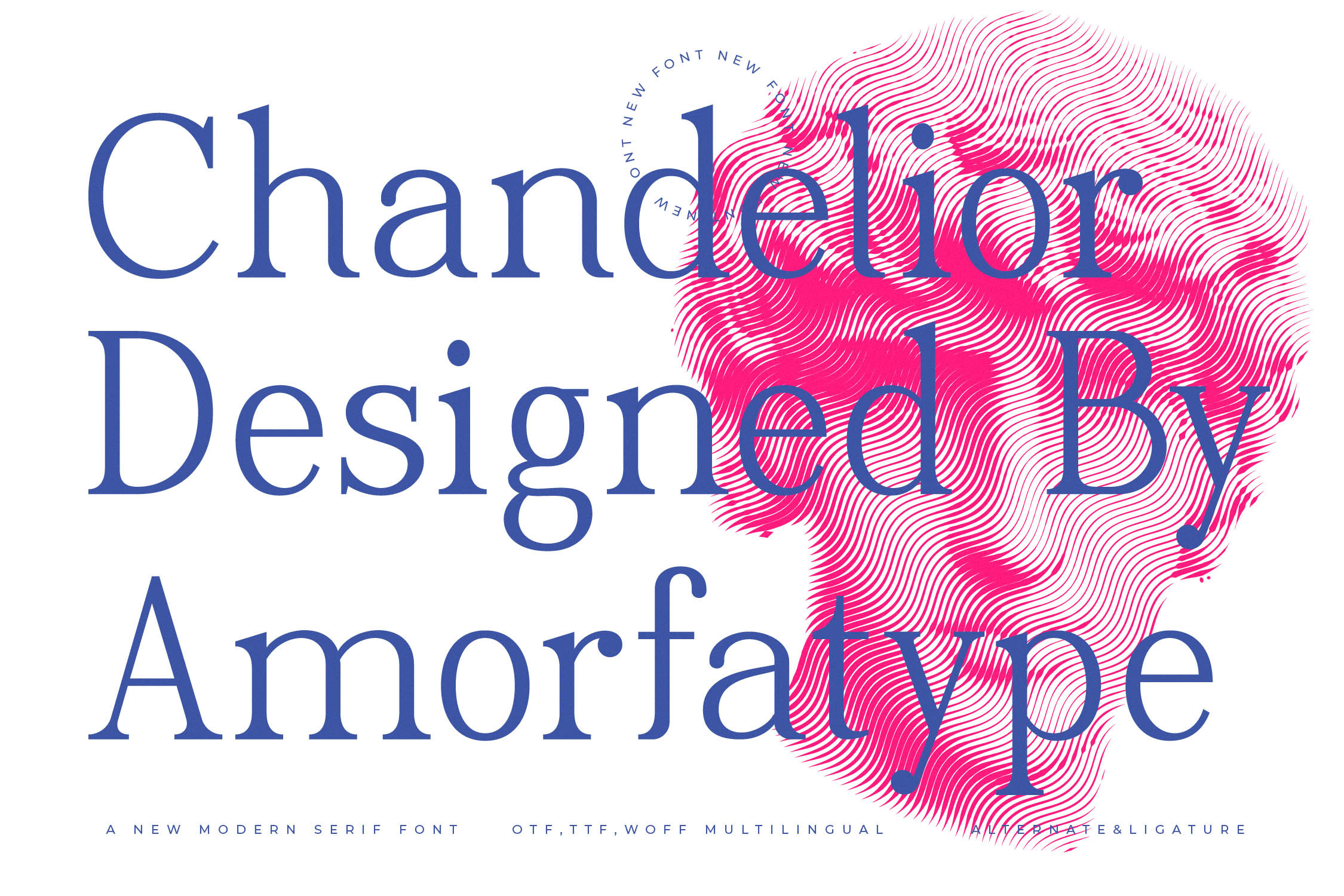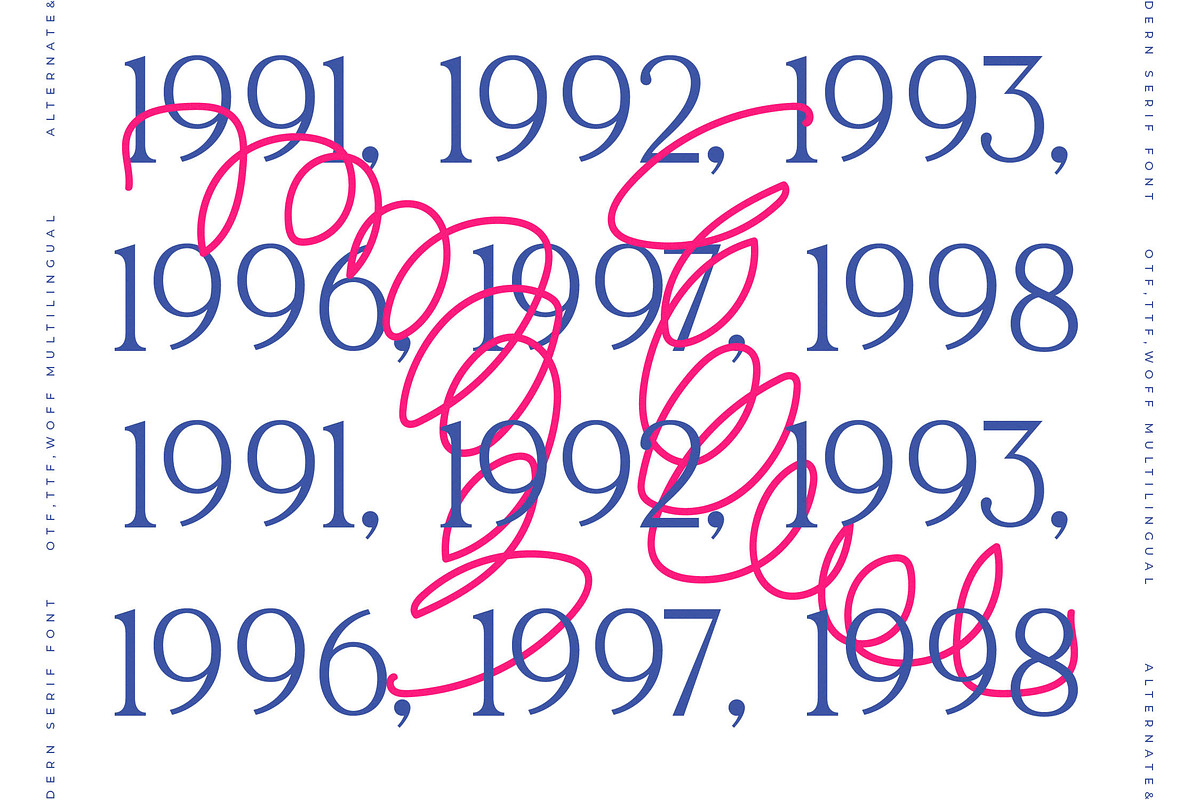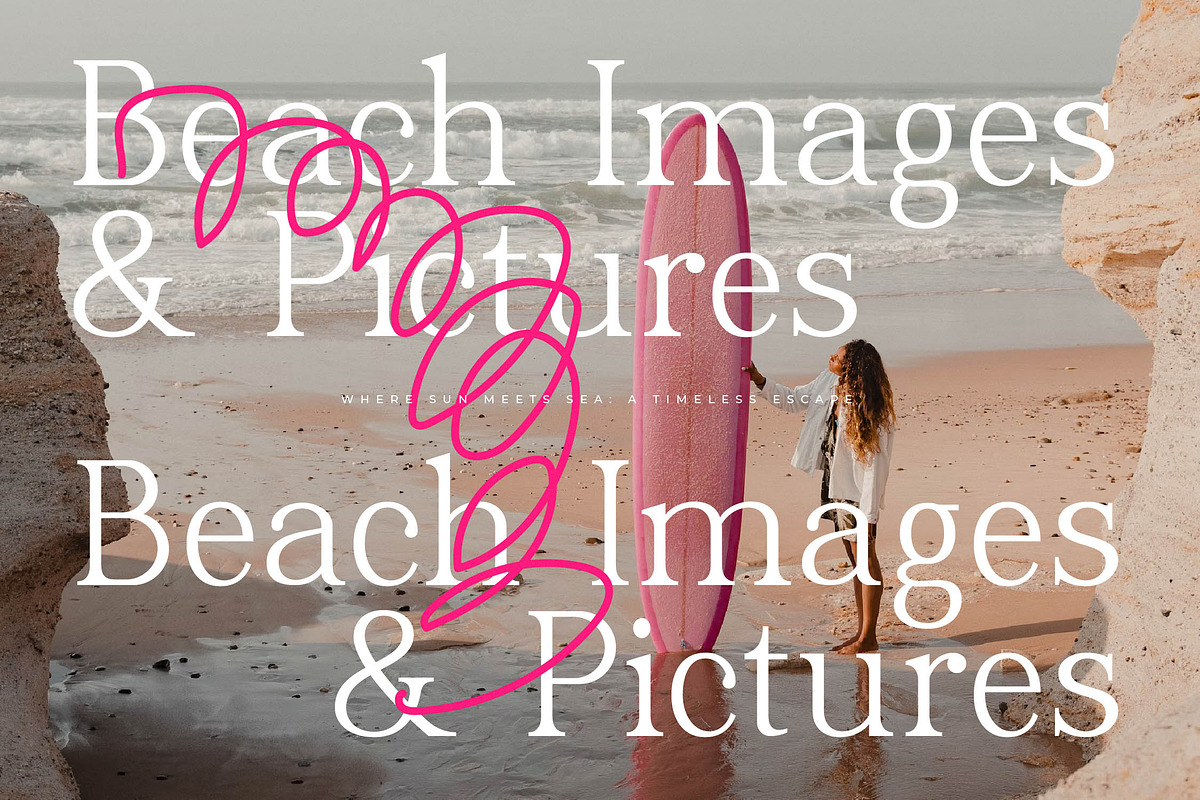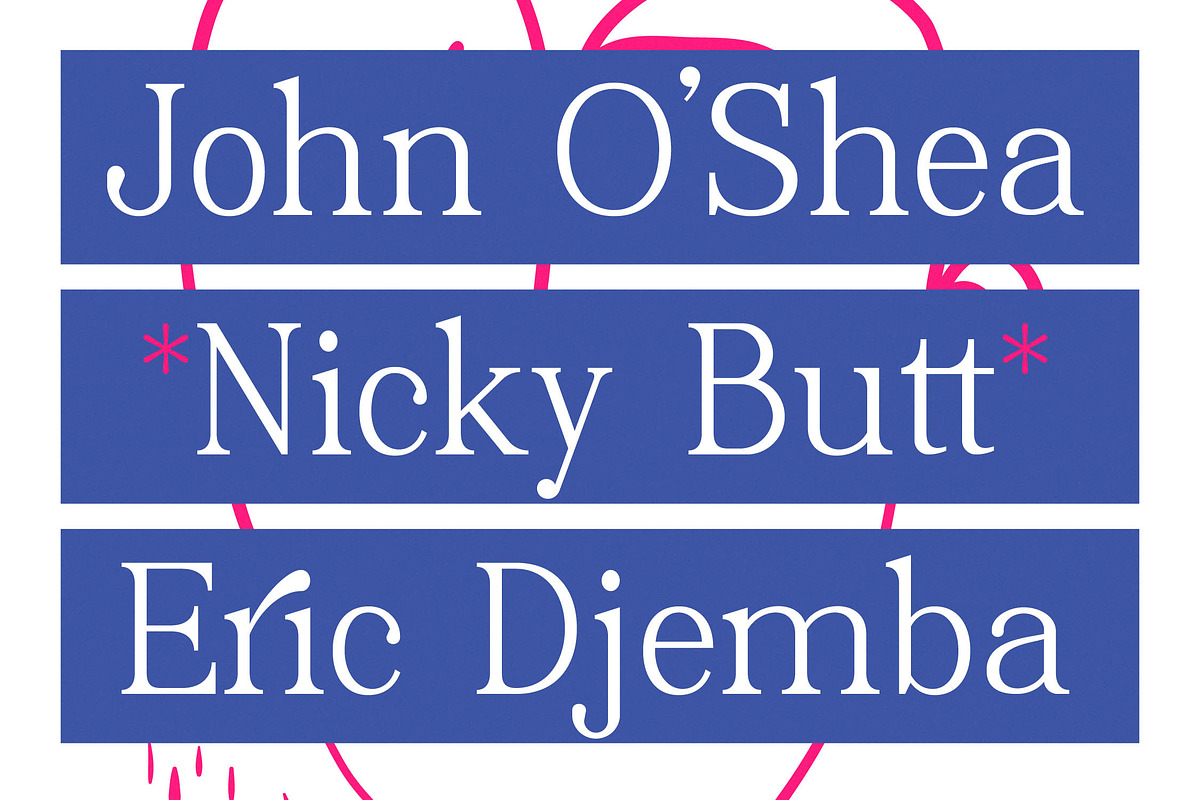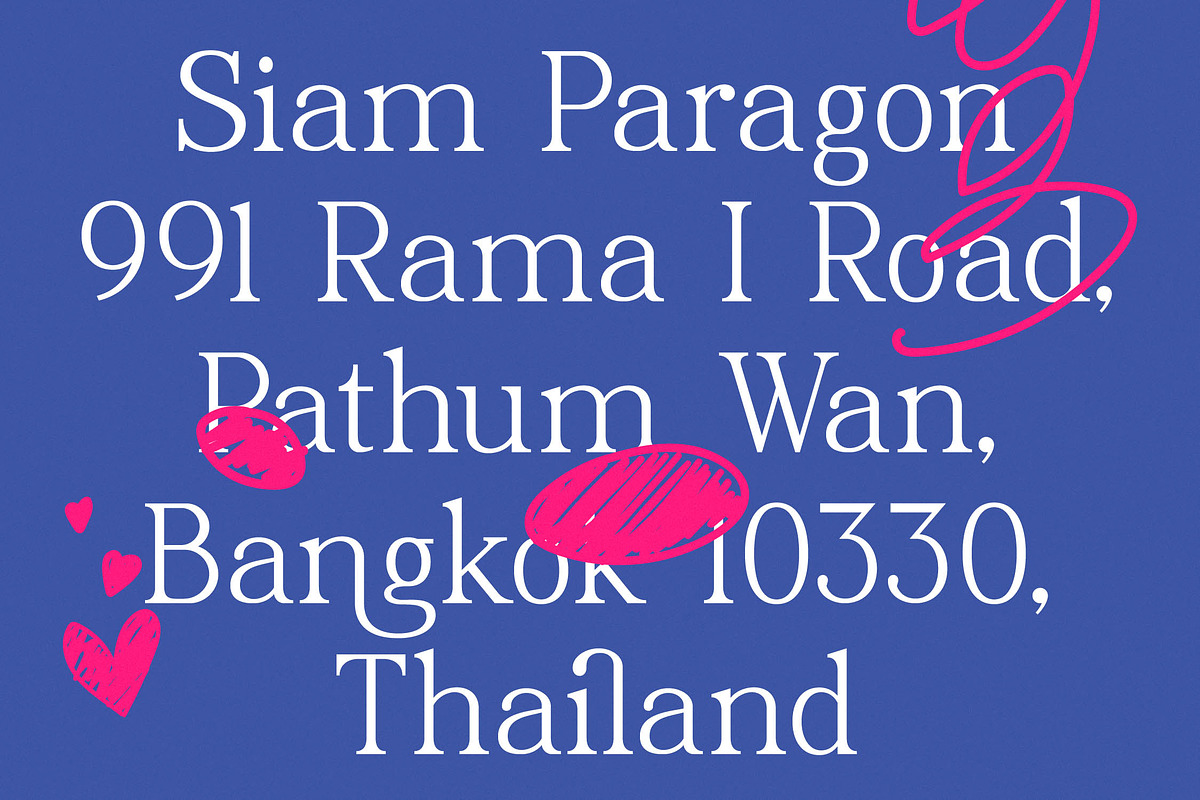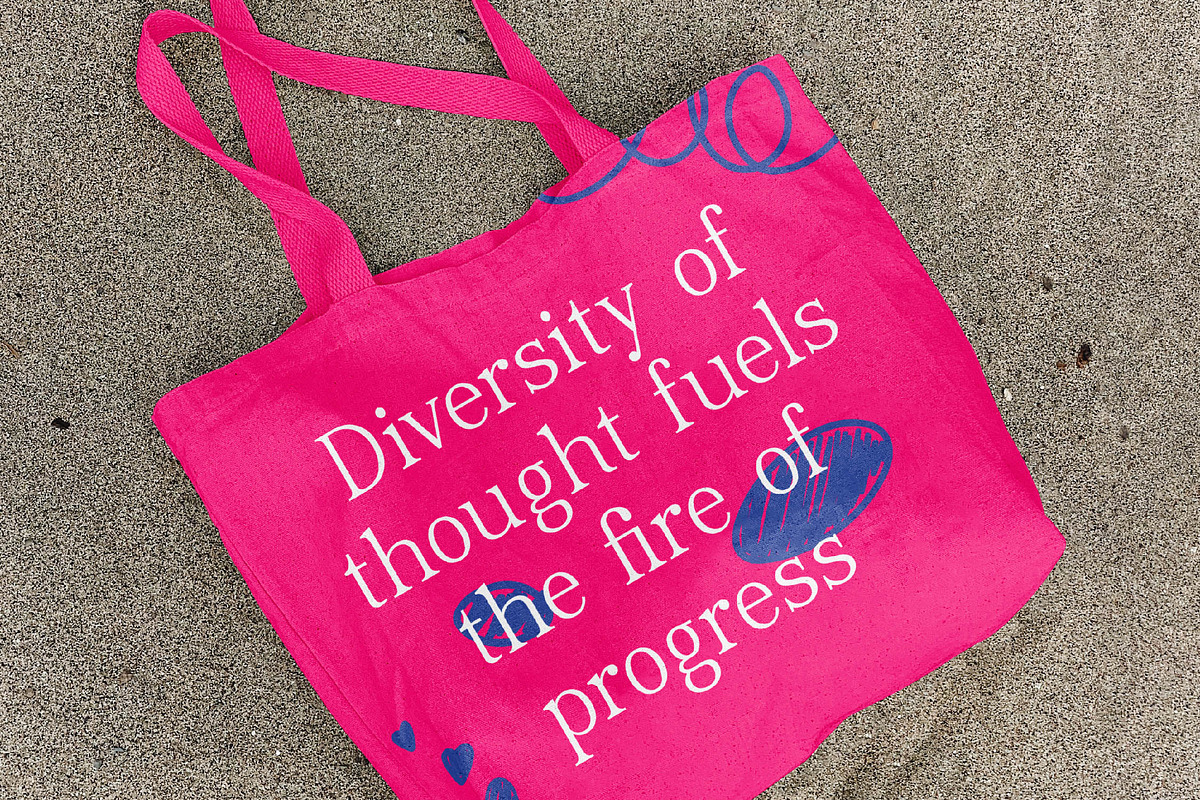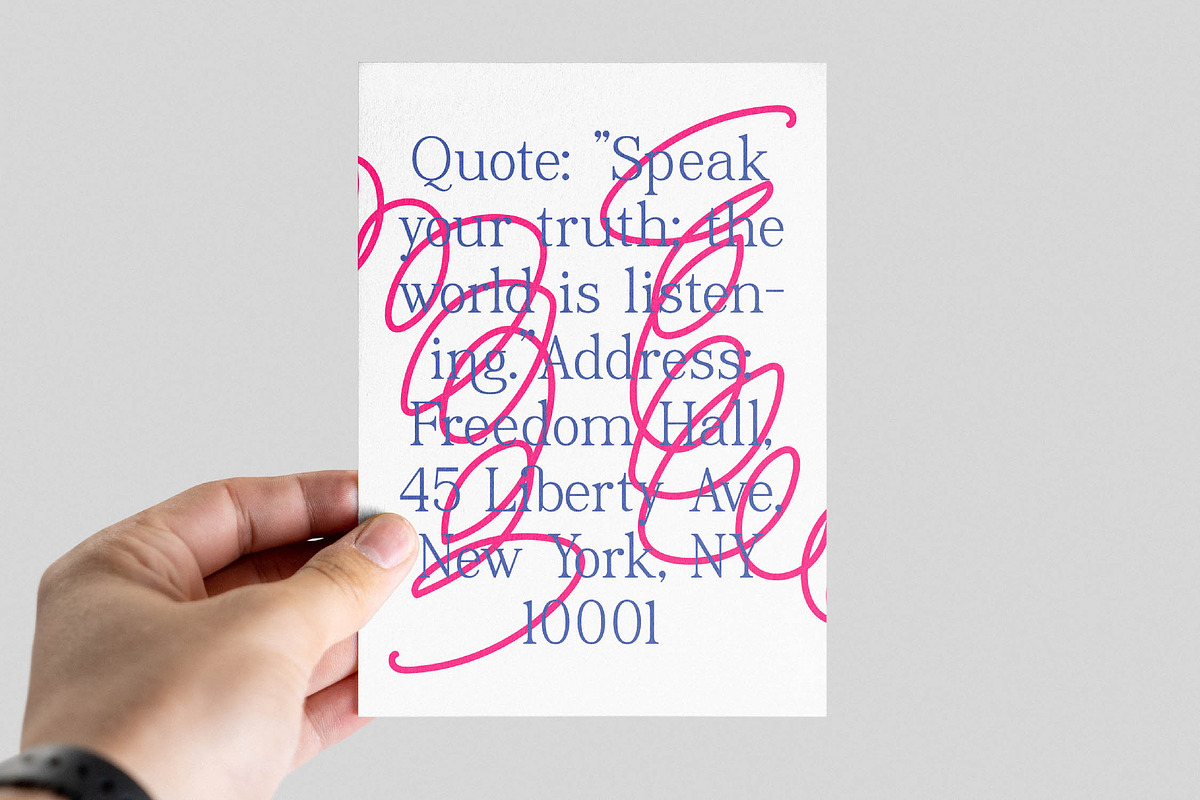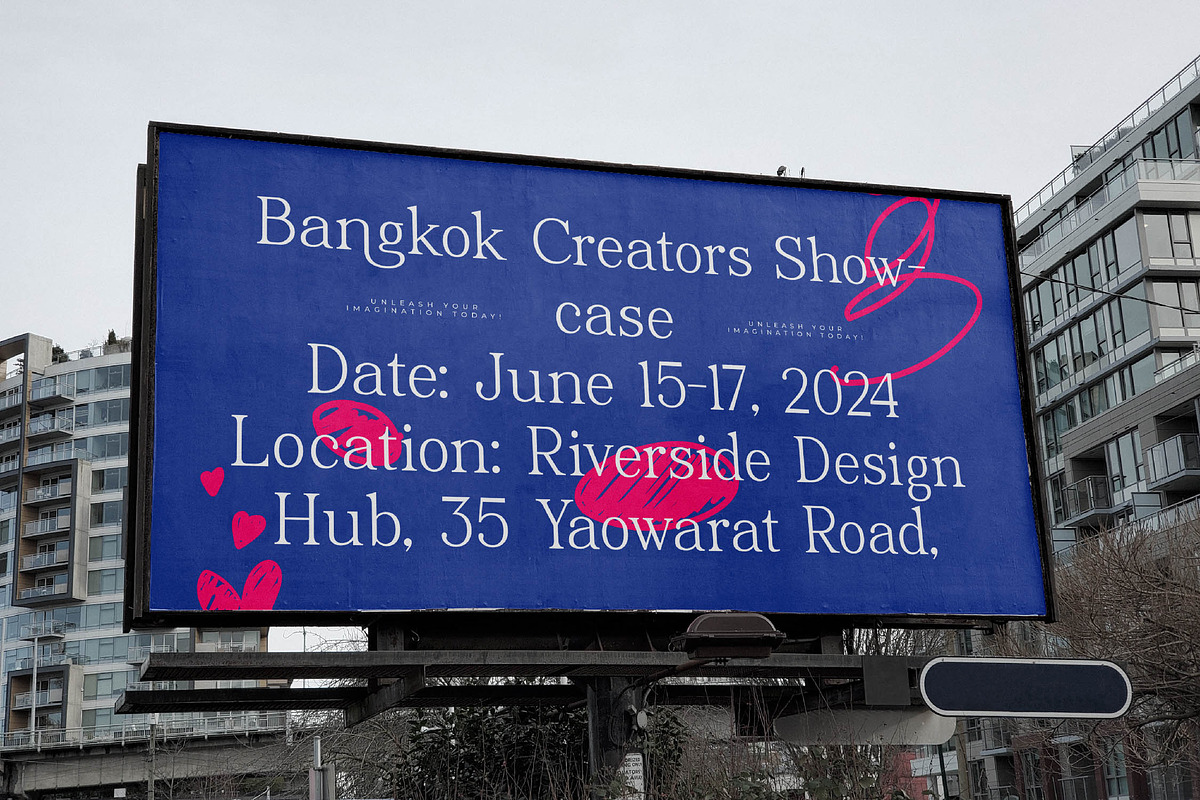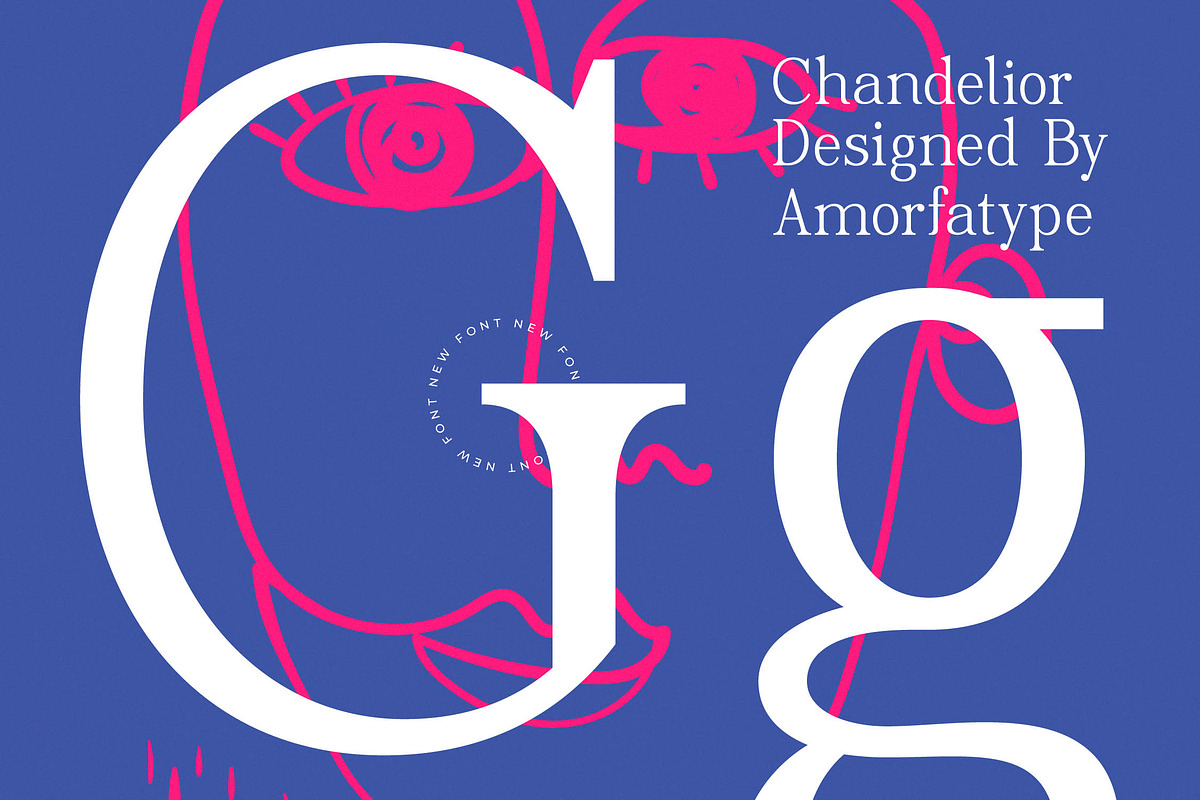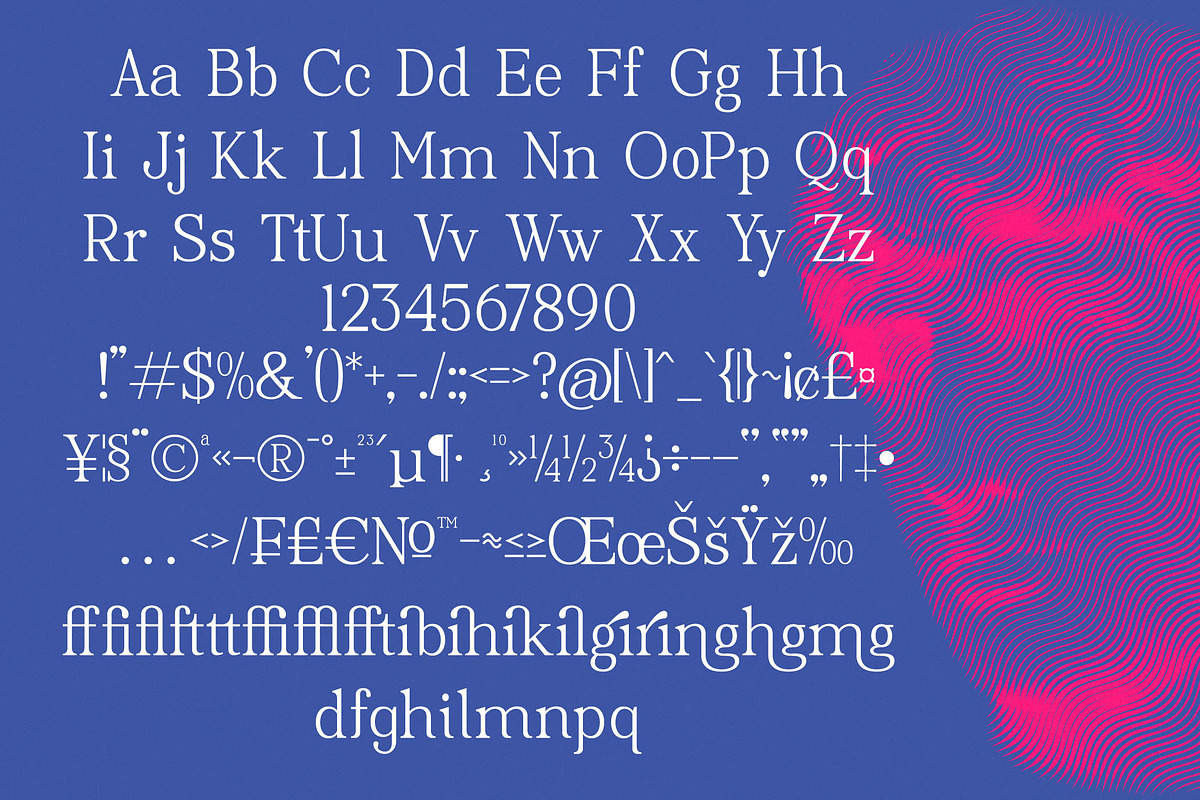
Chandelior - A Modern Serif Font
Chandelior: A Modern Serif Font by Amorfatype
Chandelior radiates contemporary sophistication and refined elegance. This modern serif font is expertly crafted to achieve a harmonious balance between bold lines and delicate curves. Each character is thoughtfully designed to merge classic charm with modern aesthetics, making Chandelior the perfect choice for upscale branding and editorial projects.
Whether utilized in striking headlines, elegant logos, or sophisticated invitations, this font imparts an air of luxury and style. Let Chandelior elevate your design work, infusing it with a timeless yet modern allure.
- Ligatures, Alternates & Swashes